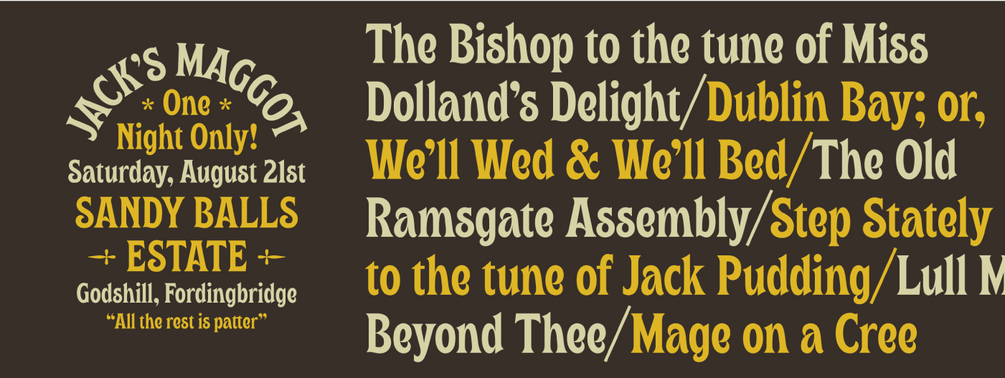
Jack's Maggot
Jack's Maggot is a brand new font designed by Simon Walker. Jack's Maggot was his father's band back in the early 80's. This font has a very cool vintagey look and it's perfect for packaging projects.